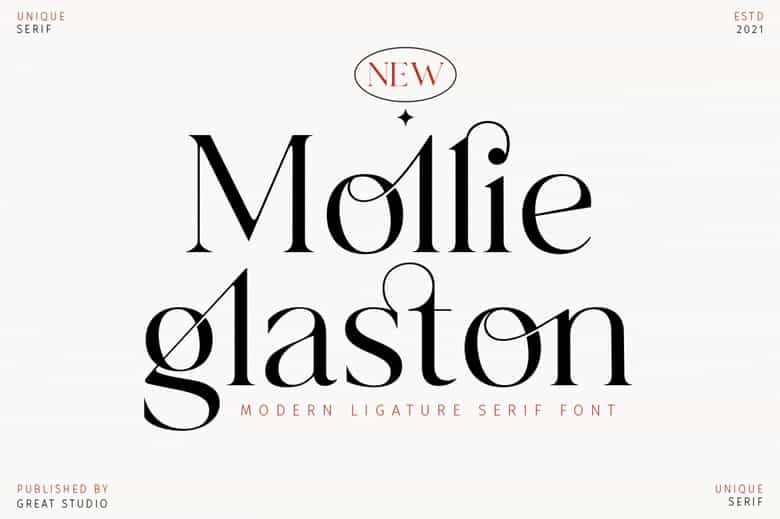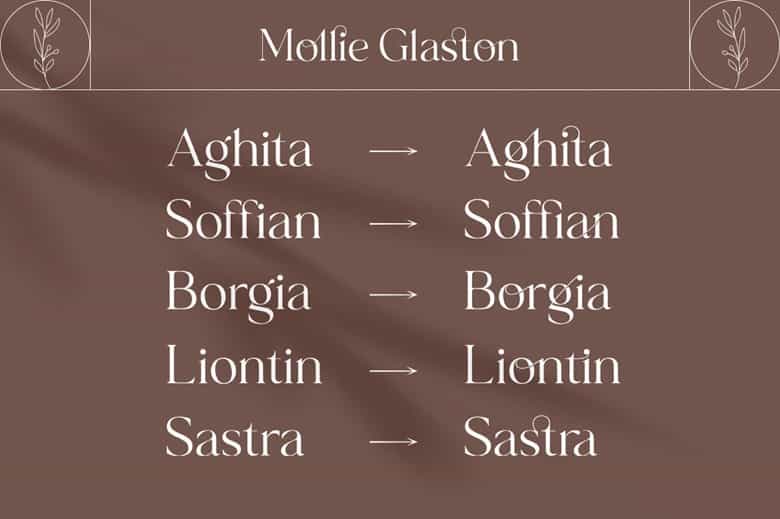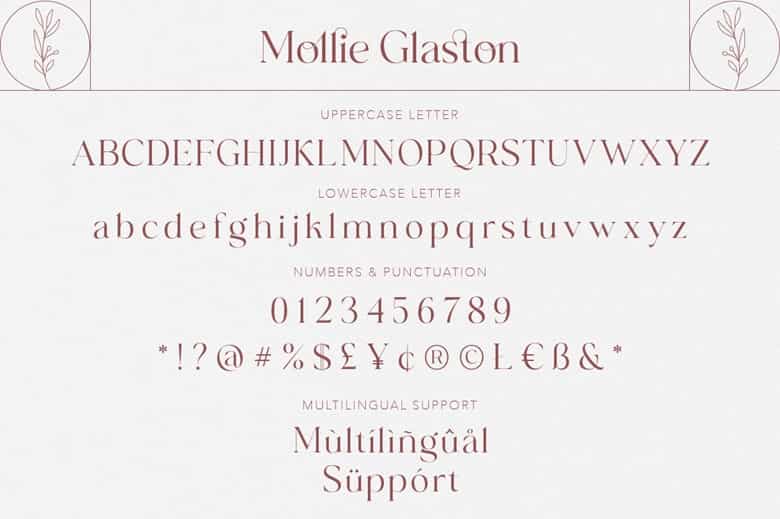
Mollie Glaston is a serif font that has a ligature style and is very high contrast and light typeface suitable for feminine logo signs, fashion heads & editorial designs, branding projects, clothing branding, packaging, magazine headings, advertising, T-shirts, postcards and many other.